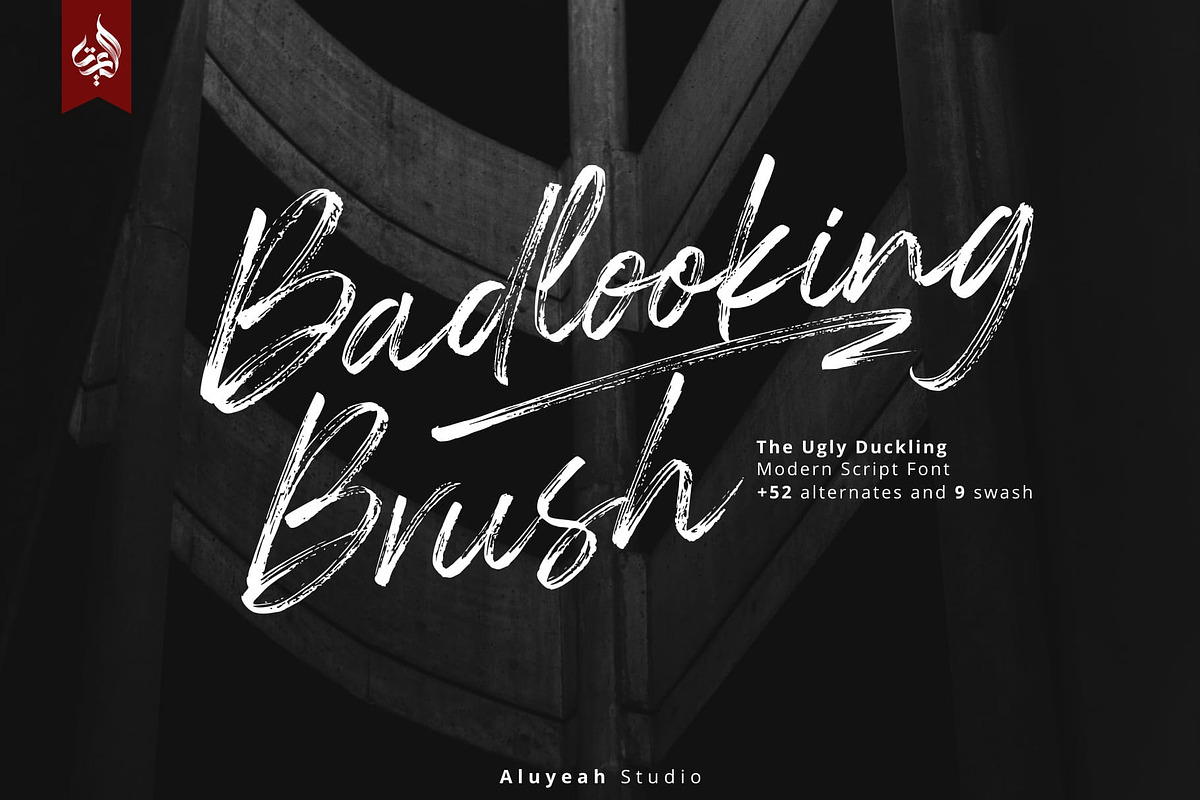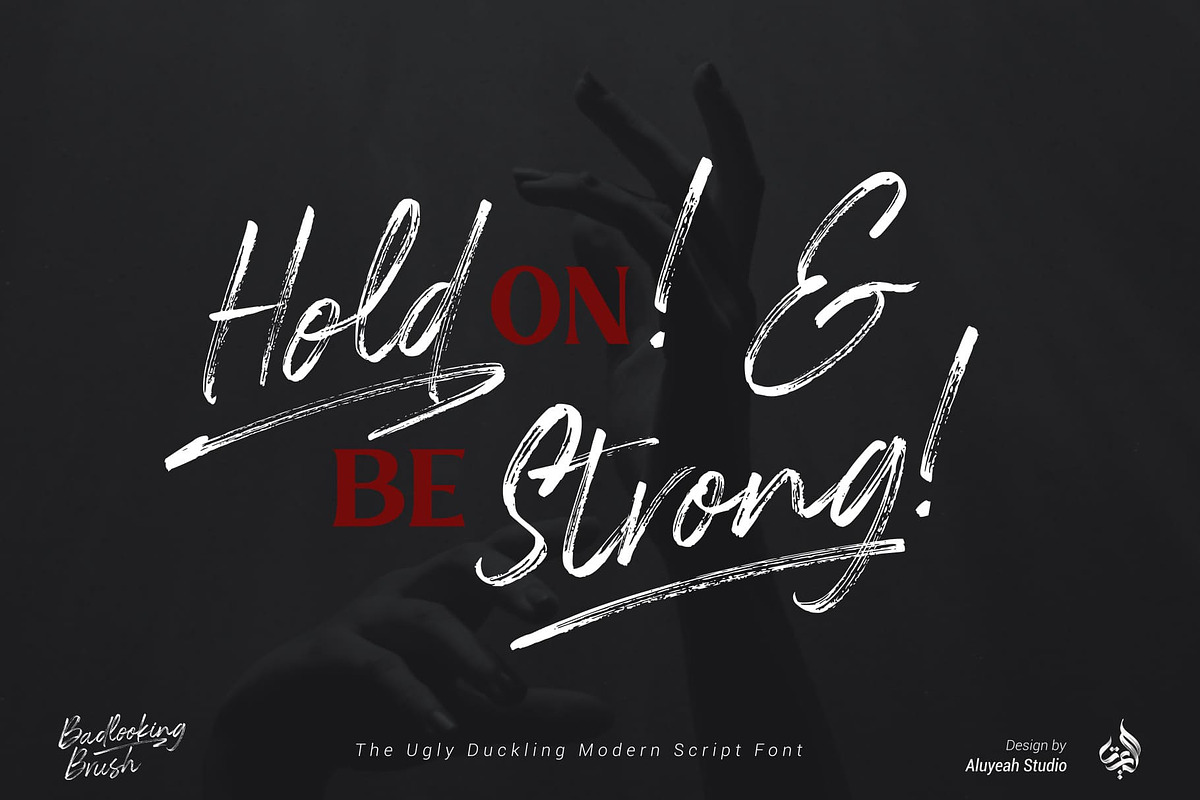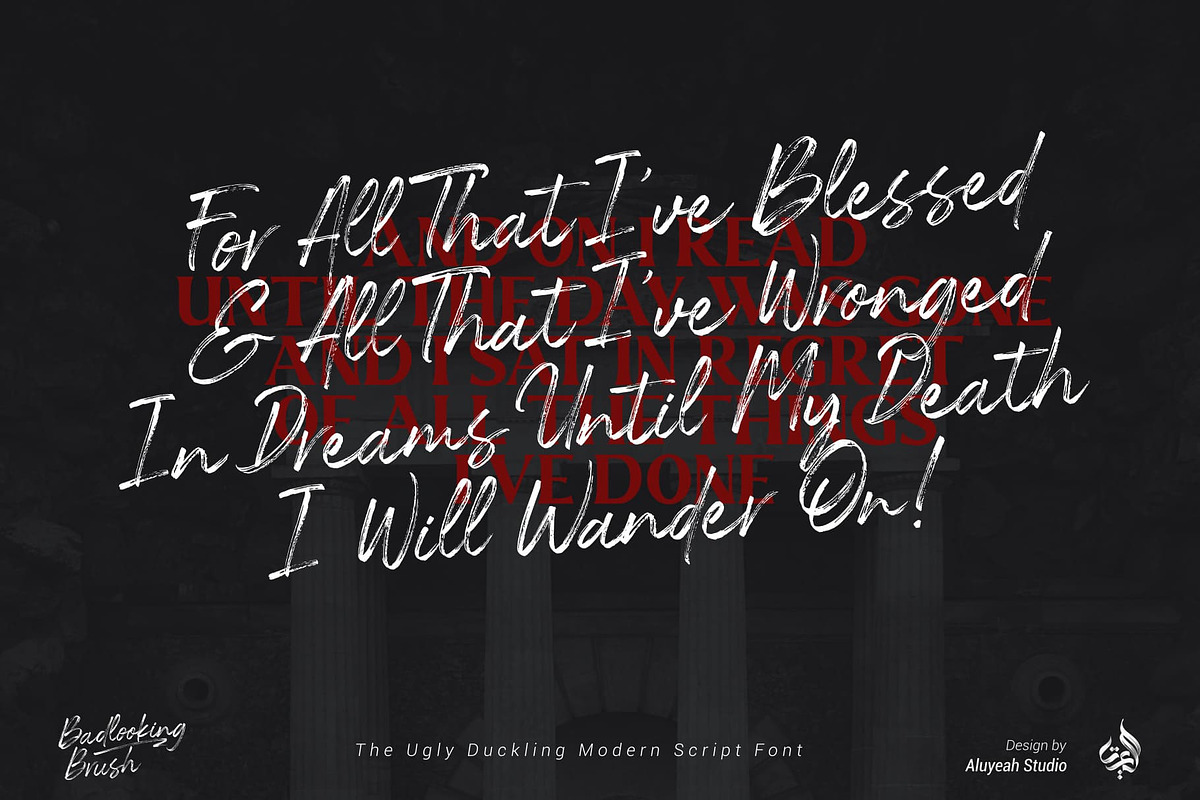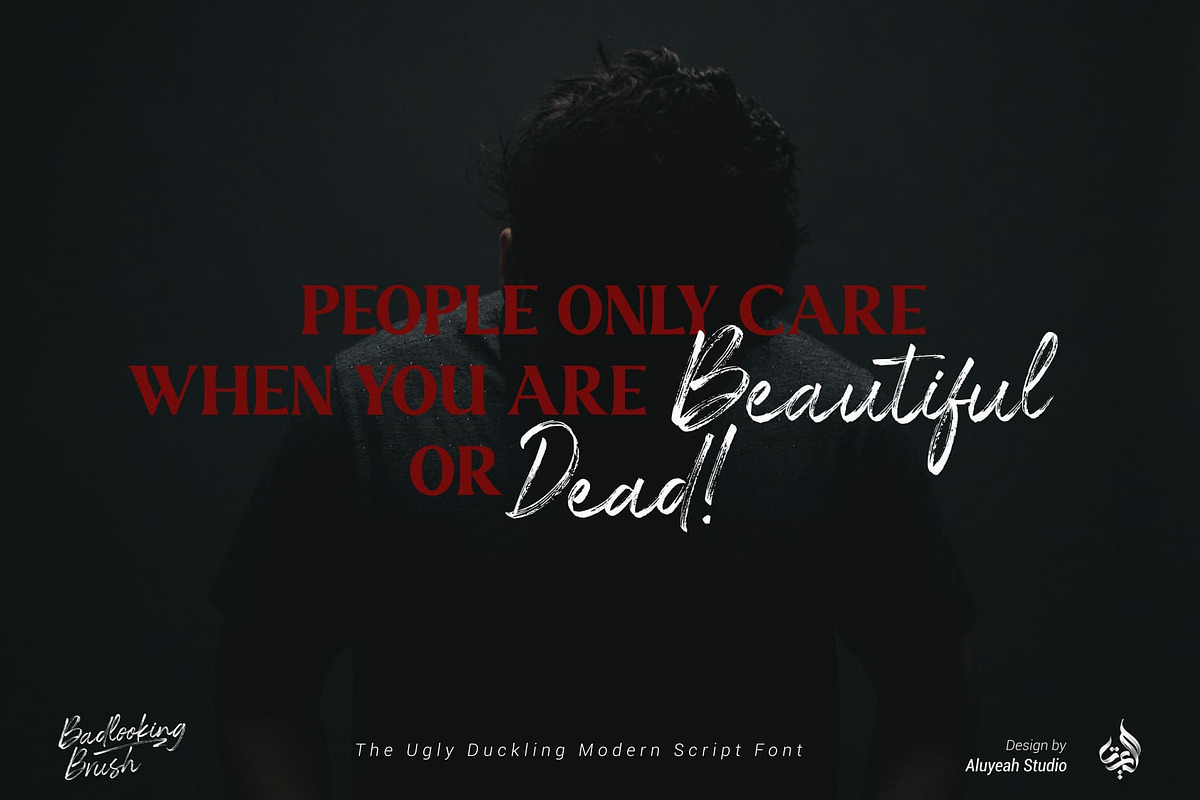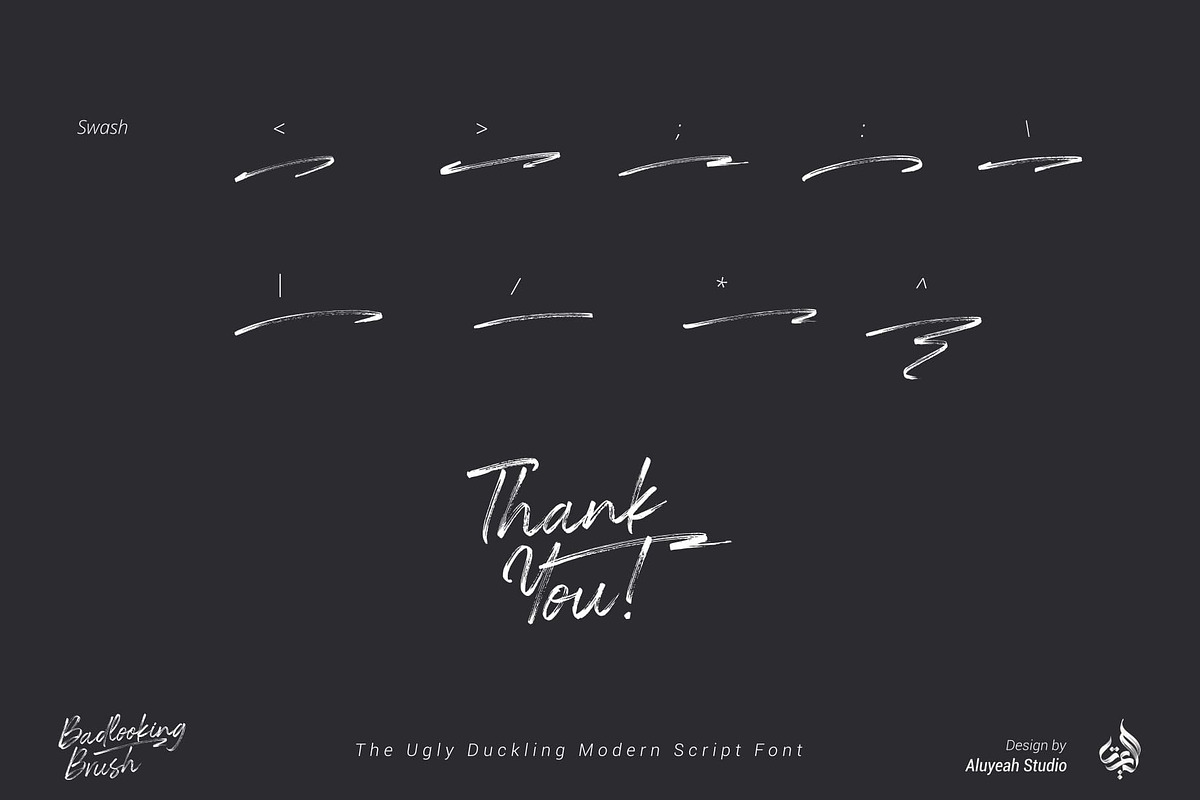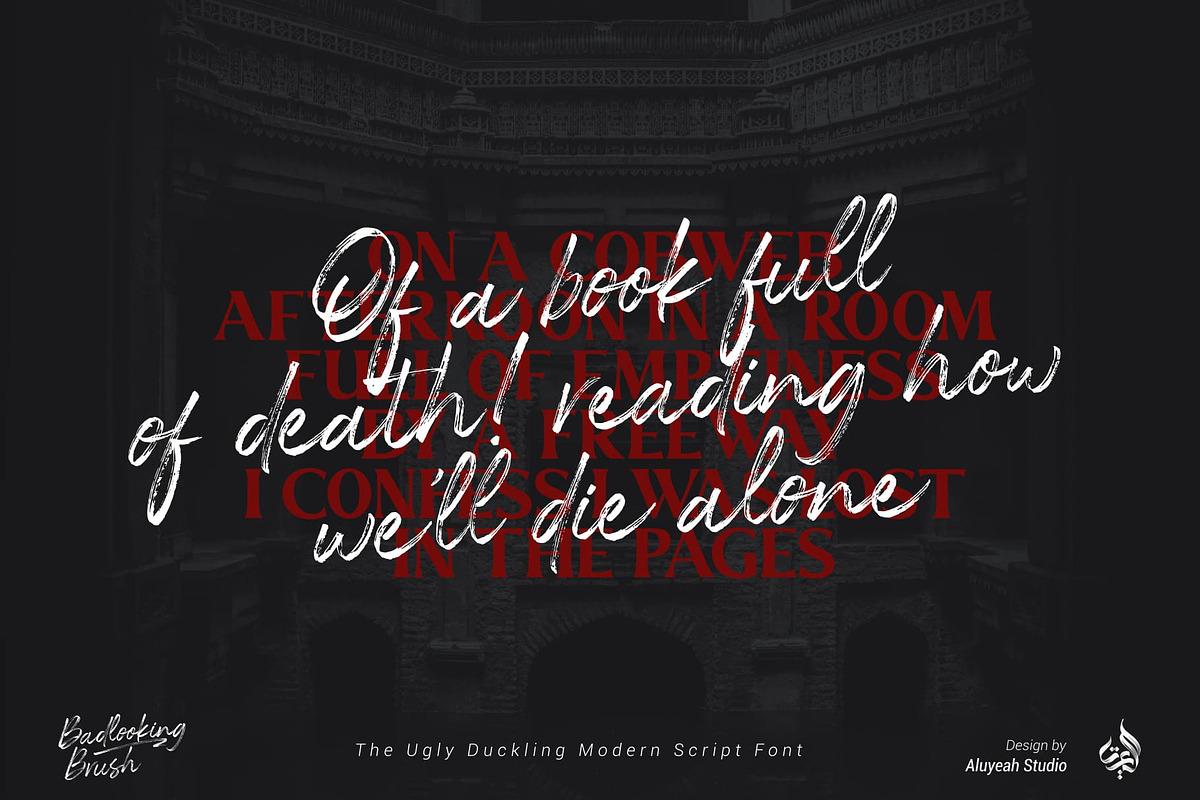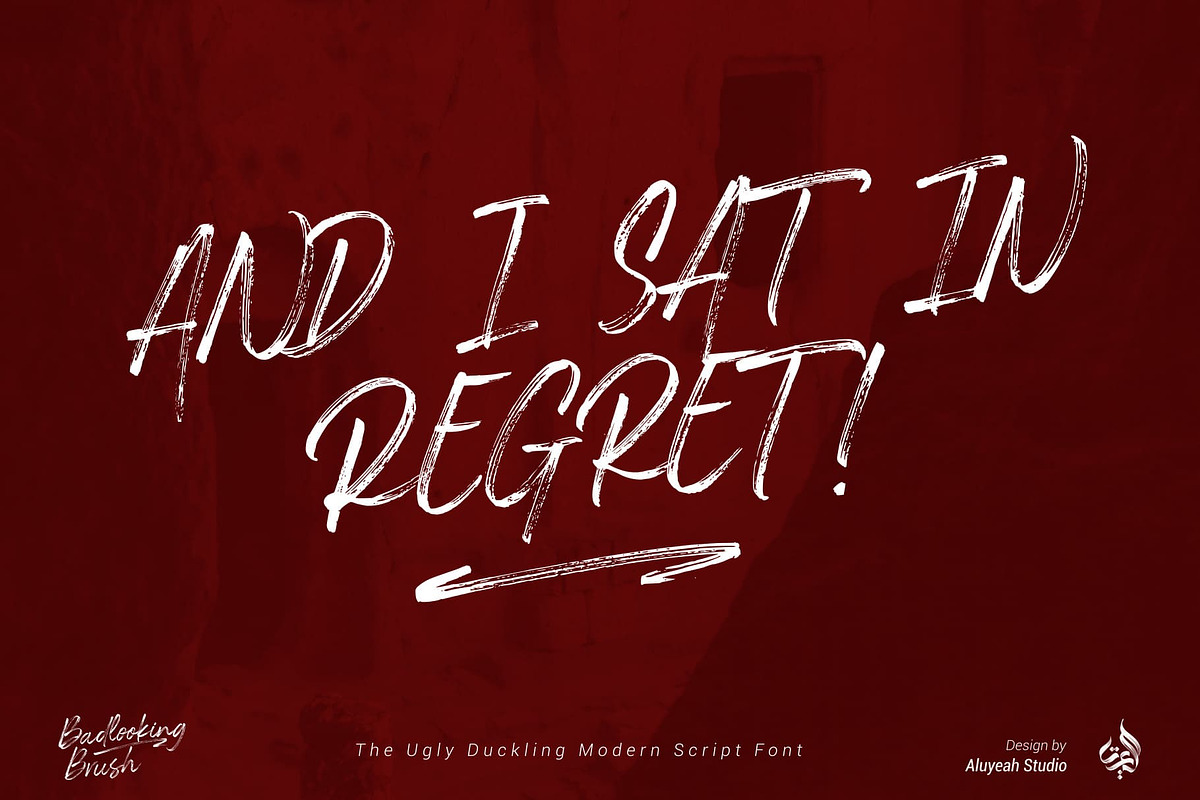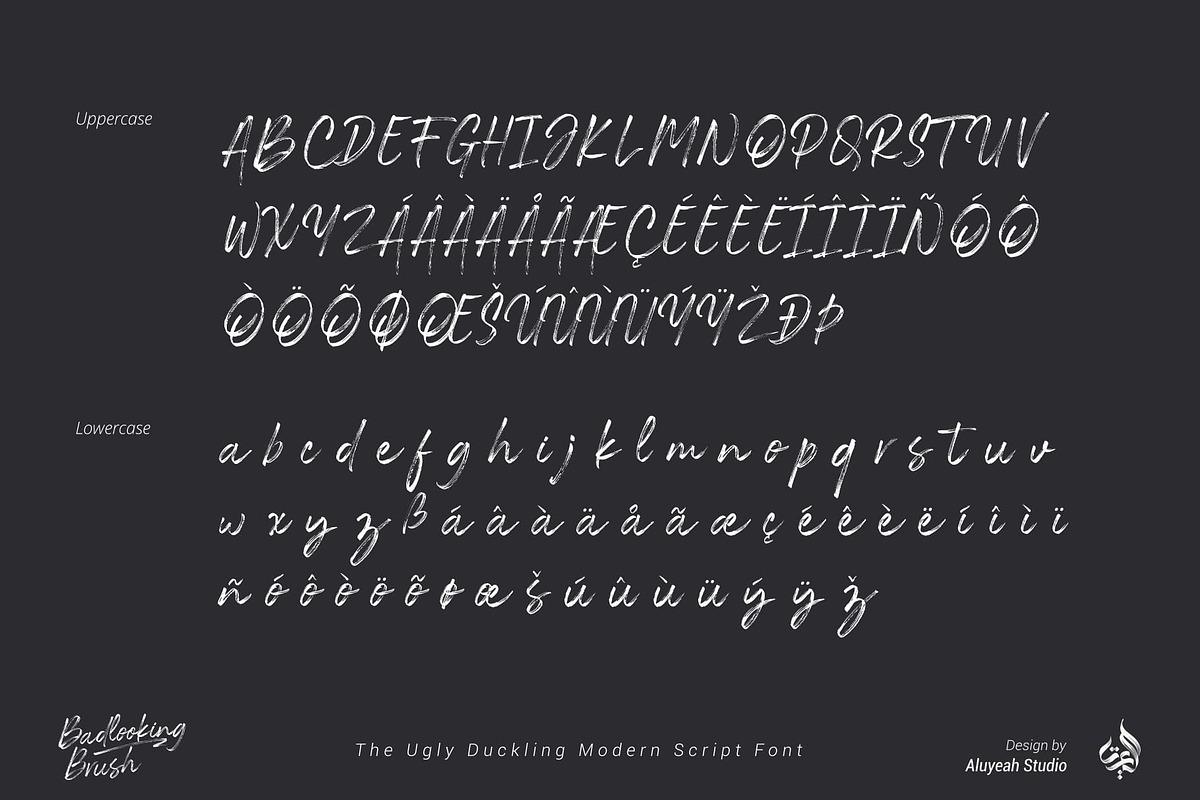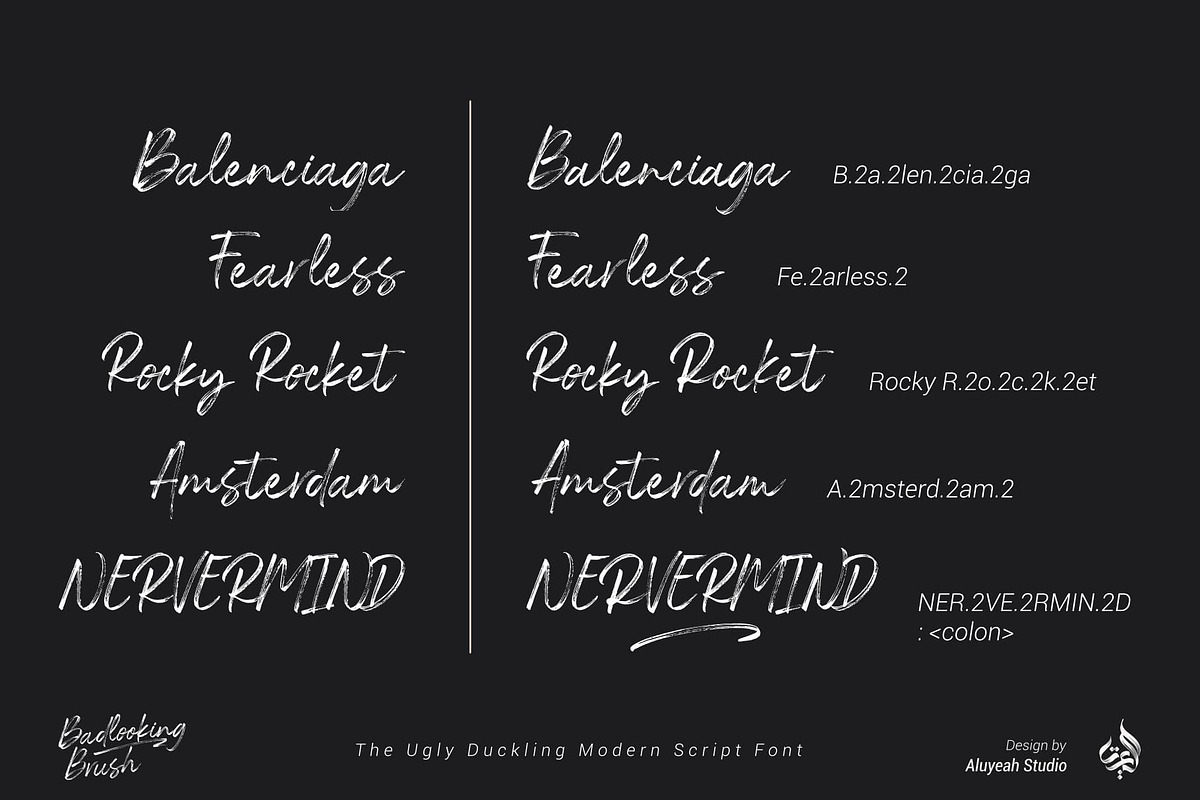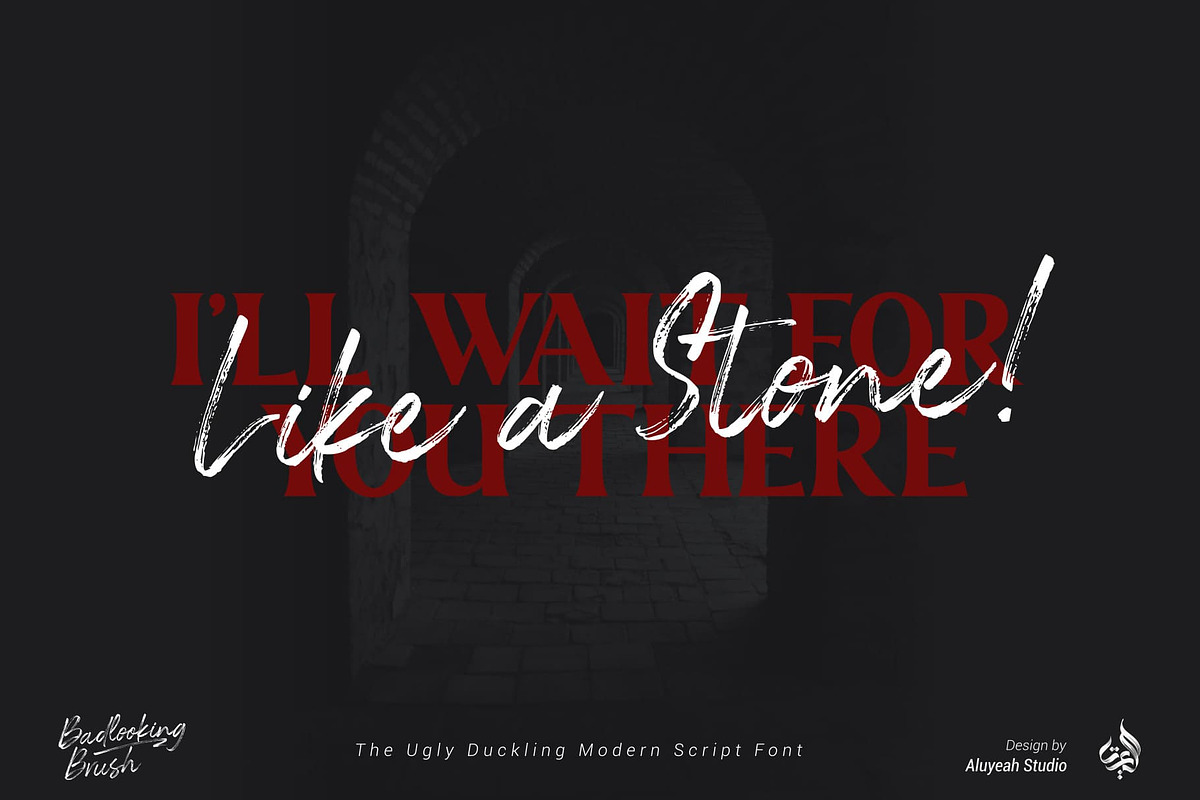
Badlooking Brush
Badlooking Brush, the ugly duckling modern script font. Coming with 52 alternates, 9 stunning swash and super easy to use alternates.
Very suitable for magazine, headline, website, ads, product package and all type of design project you have.
- OpenType support
- Multilingual support (15 languages)
- Super Easy to Use alternates - It's OpenType support but you can easily call alternates character using special combination like A.2 R.2 a.2 h.2 etc so you don't need a special software.
To get results like the preview just type Badloo.2king B.2ru.2sh